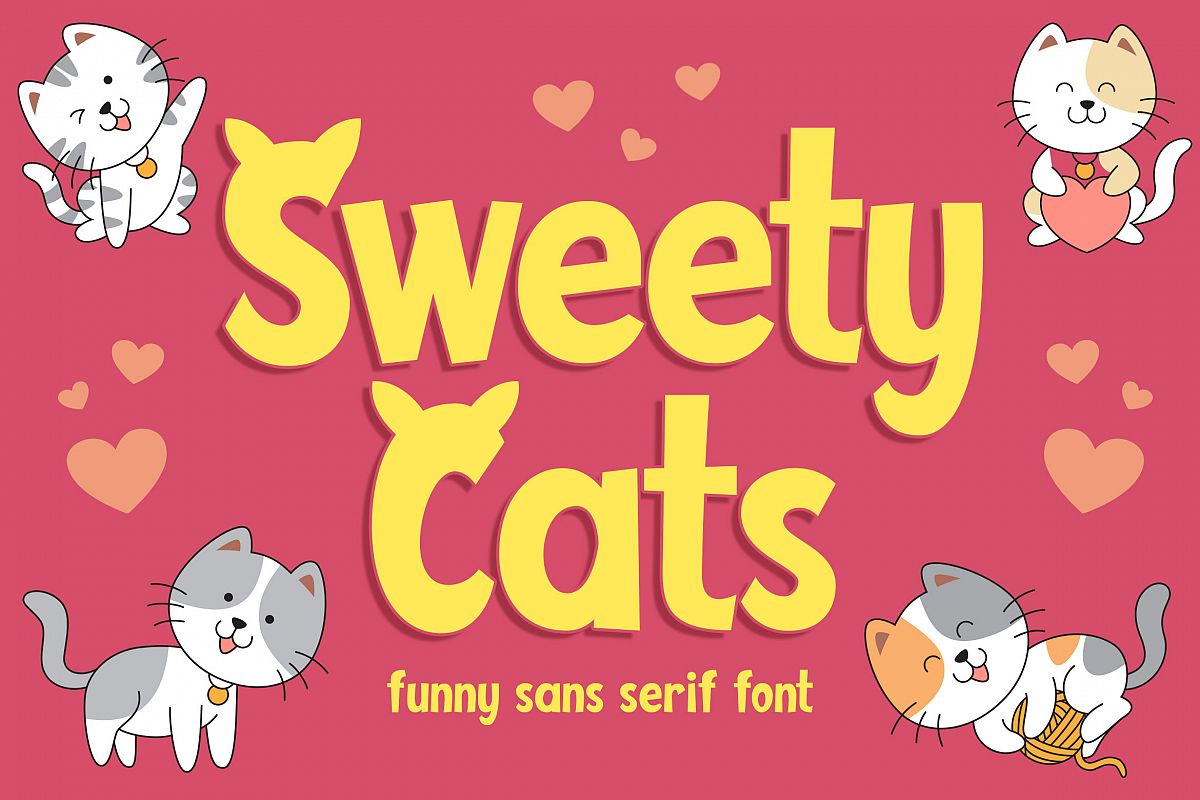
Introducing of our new product the name is Sweety Cats. Sweety Cats inspired by kids style this font is a fun theme very good for cats logo, pet typography, poster, logotype and etc